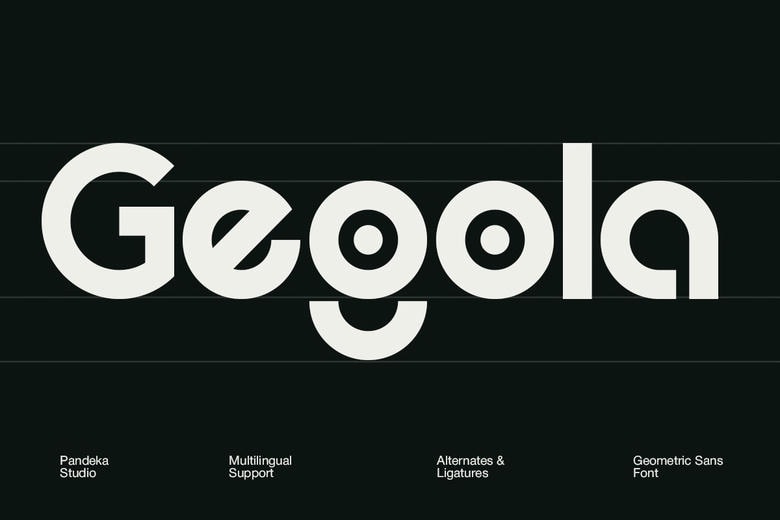
Gegola Font
Gegola is an aggressive geometric sans-serif font with a sci-fi future touch. Gegola is favored by other technologies, fintech products, editorial layouts, and marketing strategies ideally designed to draw the eye and stay legible simultaneously.
Gegola has great visual appeal due to multilingual support and clean, modular letterforms that can be applied to a logo, a headline, or a digital interface with great effect.
Gegola Sans Serif Font